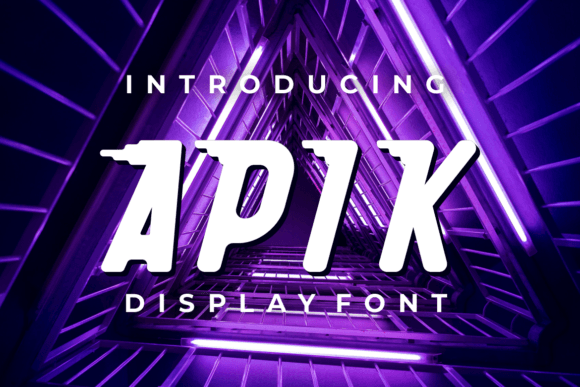
Have you ever stared at a blank canvas, wondering what’s missing to make your design truly pop? It’s a feeling we’ve all been there, and it’s exactly what drives us to keep pushing the boundaries of creativity. Sometimes, all it takes is one tiny detail to elevate an entire project. For designers, this tiny detail can be the perfect font.
Enter Apik Font, a cool and modern display font designed to take your creations to the next level. Whether you’re working on a logo, a social media graphic, or a branding campaign, Apik Font is the perfect addition to your font library. Its versatility and sleek design make it an invaluable asset for any designer looking to add a touch of sophistication to their work.
With Apik Font, you’ll be able to give your designs a unique edge, setting you apart from the crowd and making your work truly unforgettable. Whether you’re a seasoned pro or just starting out, this font is sure to become a trusted companion in your design journey.
Apik Font Key Features
- Font Family: Apik Font is a sans-serif font family that comes in multiple weights and styles, including Light, Regular, Medium, Bold, and Black.
- Character Set: Supports a wide range of languages, including Latin, Cyrillic, and Greek, making it a versatile font for global designs.
- Unique Characteristics: Apik Font features a clean and modern design aesthetic, with a focus on readability and versatility, making it an ideal choice for corporate branding, digital products, and publications.
Apik Font Review
Overall, I was pretty excited to dive into Apik Font, but my experience was a mix of highs and lows.
- The font’s unique design gives it a quirky, modern feel that can be perfect for creative projects.
- The font’s versatility shines through in its ability to work well in both digital and print media.
- The font’s high legibility makes it a great choice for body text and headings alike.
- The font’s uniqueness can also be a drawback, as it may not be suitable for projects that require a more traditional or formal tone.
- The font’s high x-height can make it appear busy or cluttered in certain contexts.
- The font’s availability in a limited number of weights and styles may limit its versatility in certain projects.
Overall, I would say that Apik Font is a great choice for projects that require a unique, modern touch. However, it may not be the best fit for more traditional or formal projects. With a bit more versatility in terms of weights and styles, I think Apik Font could be a real game-changer in the world of typography.
Tips for Getting the Most Out of Apik Font
To get the most out of Apik Font, try the following:
- Use Apik Font in combination with bold or italic styles to add emphasis.
- Experiment with different font sizes to create visual hierarchy.
- Use Apik Font in conjunction with other design elements, such as images or graphics, to create a cohesive look.
Apik Font is suitable for a variety of use cases, including:
- Business cards and stationery.
Comparison to Apik Font: Inter Font has a more neutral and clean design compared to Apik Font’s distinctive rounded edges. Inter Font is a better choice when you need a font that works well in various contexts and doesn’t draw too much attention.